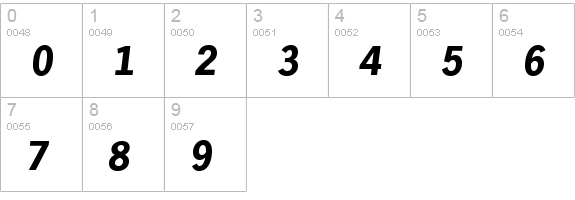
Hamburg-BoldIta Font Details
Hamburg-BoldIta is a stunningly bold and italic font that exudes confidence and elegance. Its strong, thick strokes and slanted italics make it perfect for titles, headlines, and any design that needs to make a bold statement. With its unique and eye-catching appearance, Hamburg-BoldIta stands out from the crowd and adds a touch of sophistication to any project. Whether it's a logo, branding materials, or a website, this font will captivate viewers and leave a lasting impression. But what makes Hamburg-BoldIta even more remarkable is that it is absolutely free! Yes, you read that right. You don't have to break the bank to use this high-quality font. Thanks to FontsMarket.com, Hamburg-BoldIta is freely available to download and use in both personal and commercial projects. So go ahead and unleash your creativity with Hamburg-BoldIta. Whether you're a professional designer or a passionate DIY enthusiast, this font will elevate your work to new heights. Don't miss out on this incredible opportunity to enhance your designs with a free font that is as bold as it is beautiful. Download Hamburg-BoldIta today at FontsMarket.com and let your imagination run wild.